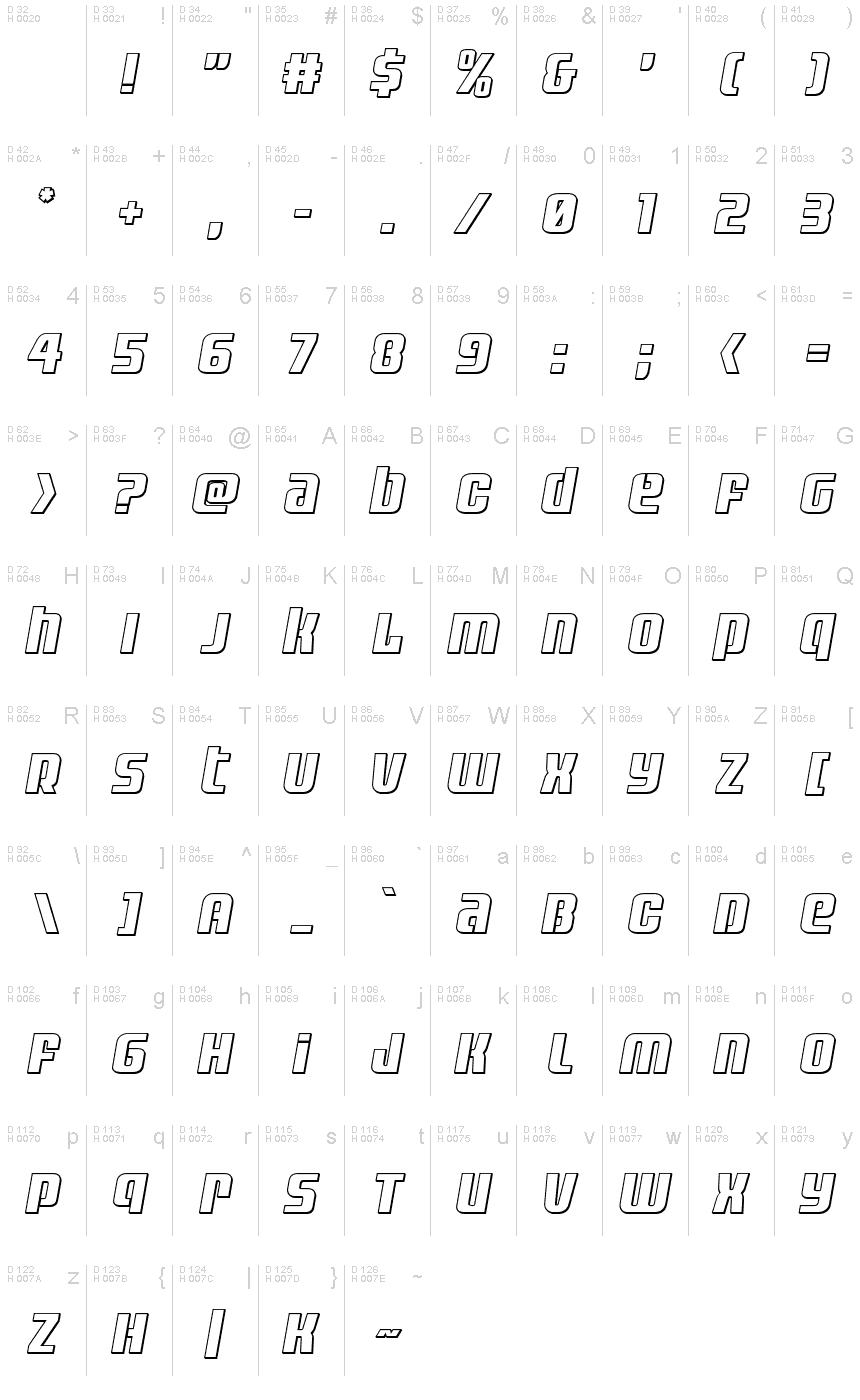
Vanguardian Outline Italic
Vanguardian Outline Italic is a bold, condensed display font designed by Daniel Zadorozny. Its 3D style makes it perfect for attention-grabbing titles, logos and posters. Use it to add a unique touch to your projects and make them stand out. It's also great for creating textured lettering with an extra dimension of depth!